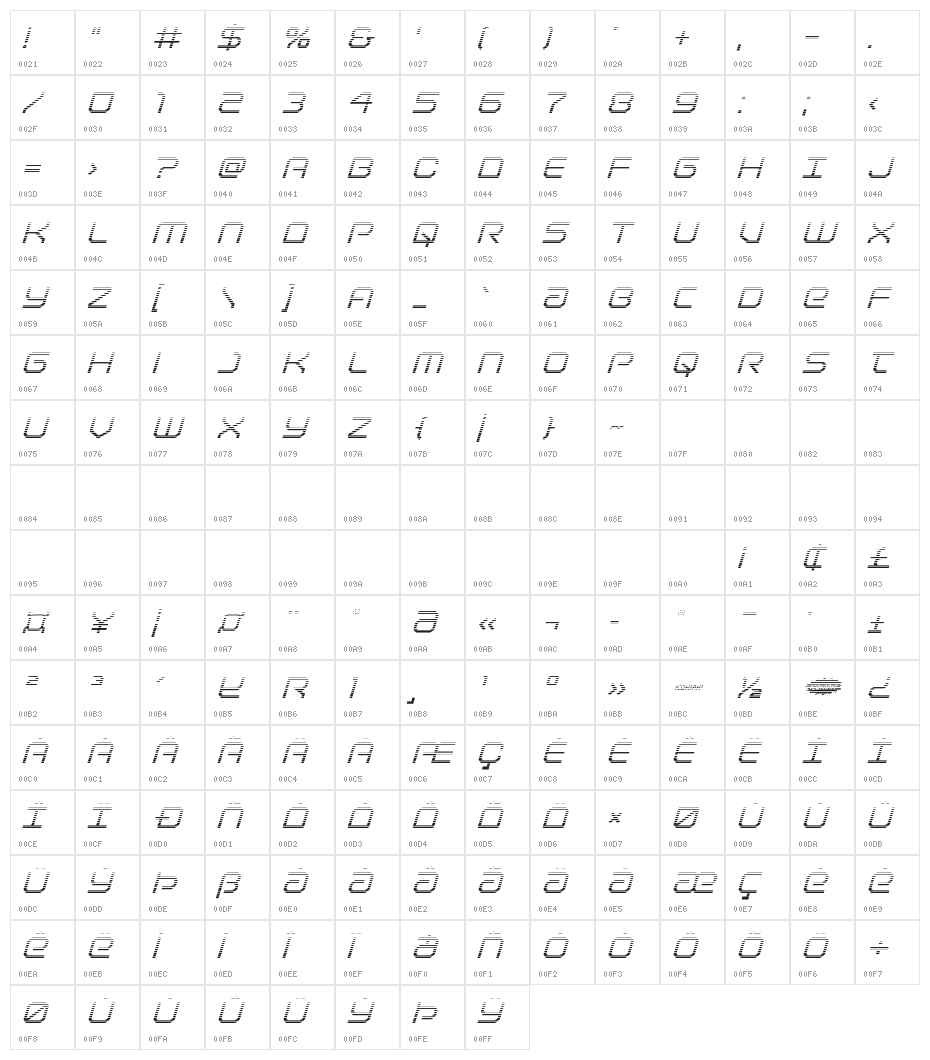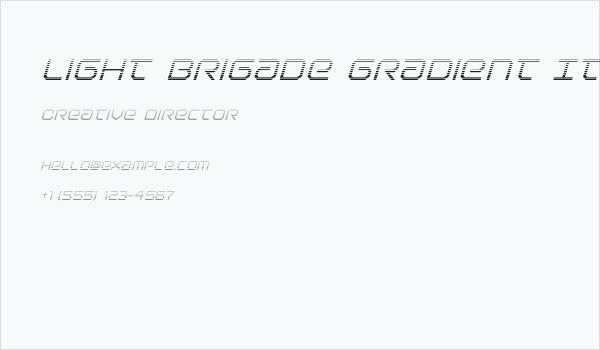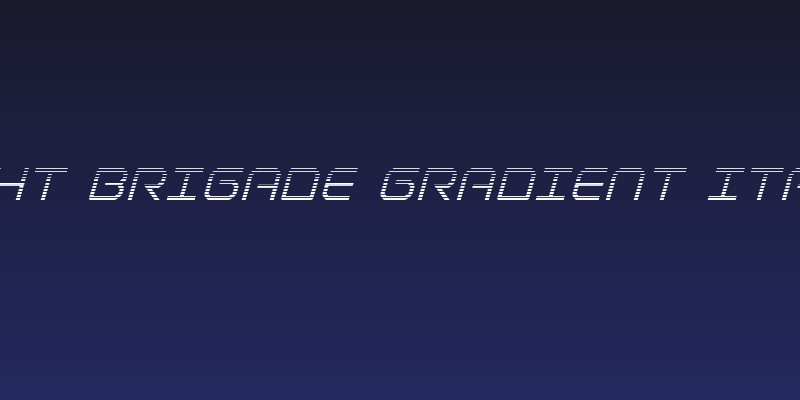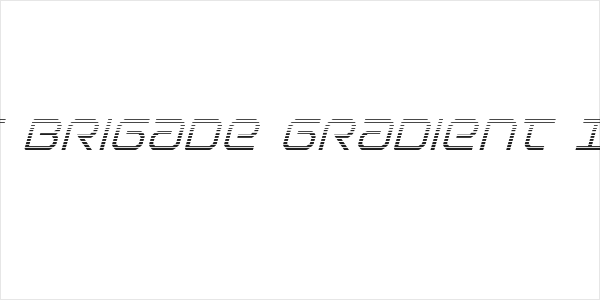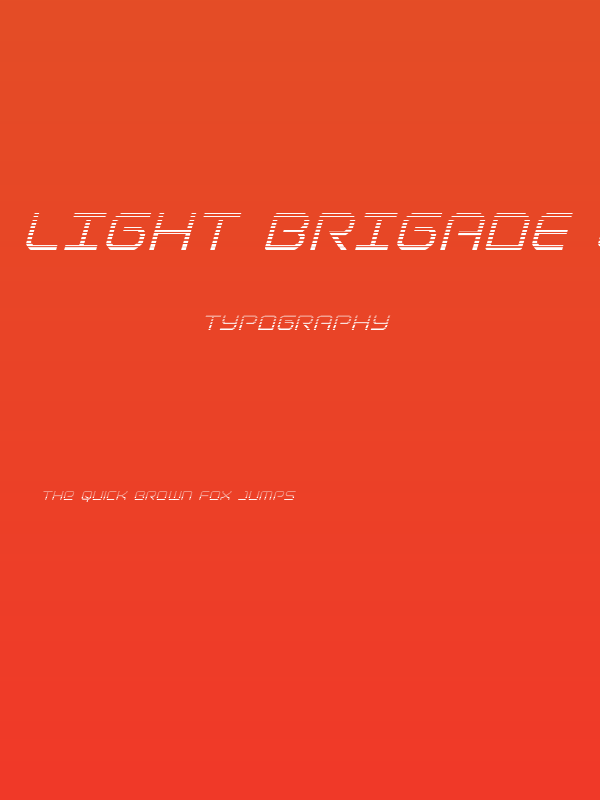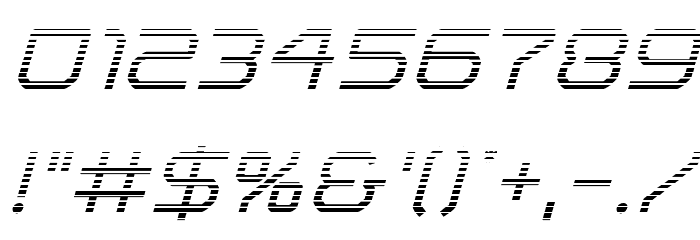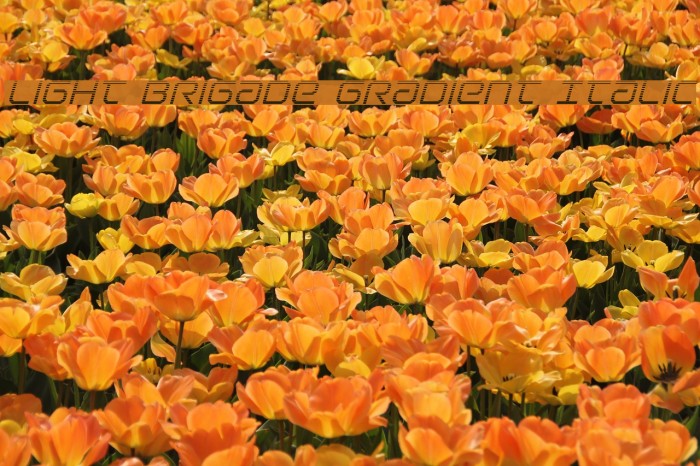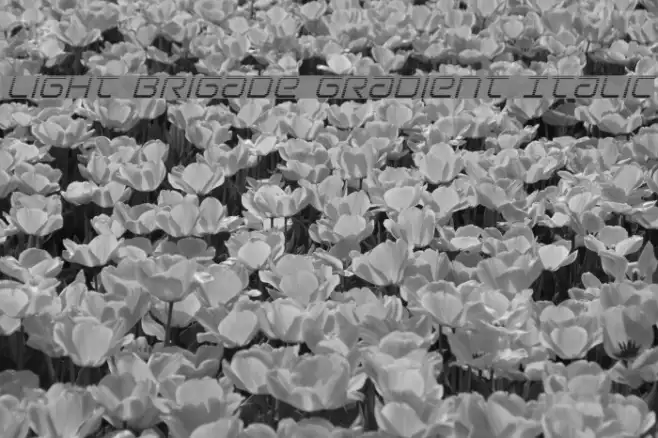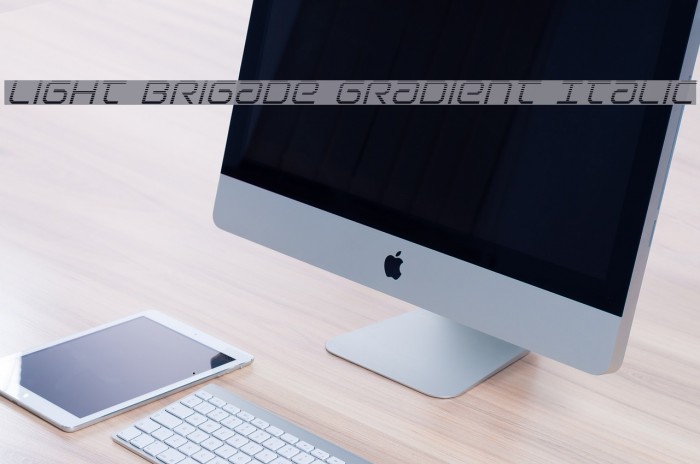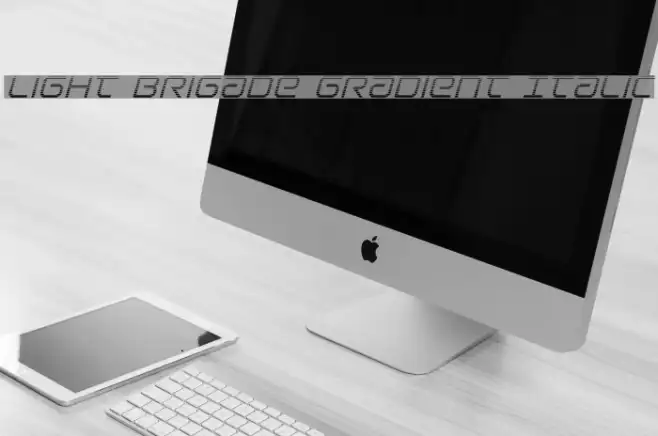
Light Brigade Gradient Italic Font
Light Brigade Gradient Italic Description
This font features a modern, futuristic design with a gradient effect that gives it a dynamic and energetic appearance. The characters are italicized, adding a sense of motion and speed. Each letter is composed of segmented lines, creating a unique visual texture that resembles digital or electronic themes. The font maintains a consistent slant across all characters, enhancing its cohesive look. It is particularly suitable for projects that require a tech-savvy or avant-garde aesthetic. The uppercase and lowercase letters are distinct yet harmonized, and the numbers and special characters follow the same stylistic approach.
| Use Case | Logos, Headlines, Posters |
| Proposed Projects | Ideal for technology branding, digital media, futuristic posters, and video game titles. |